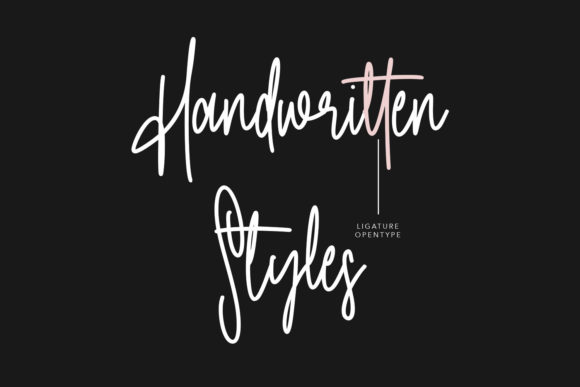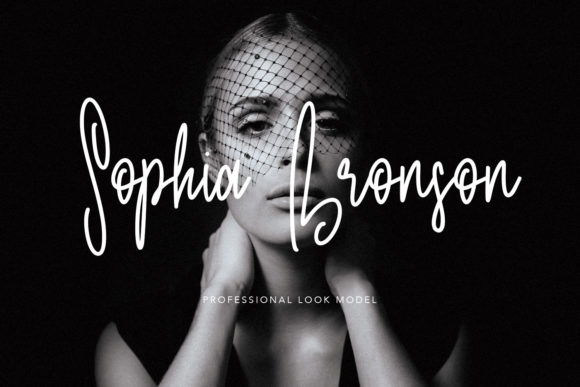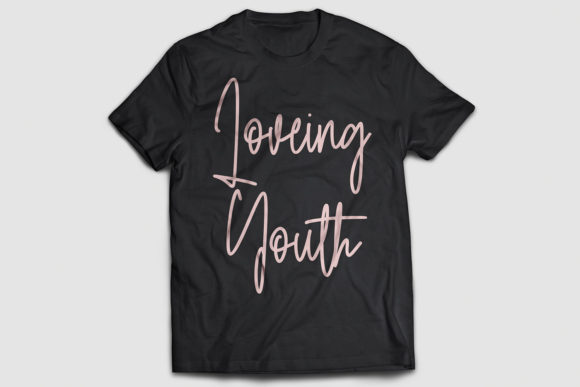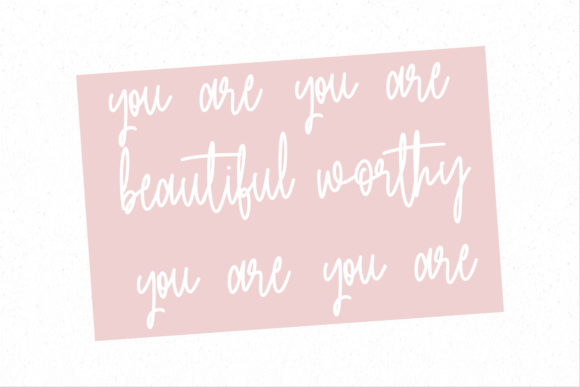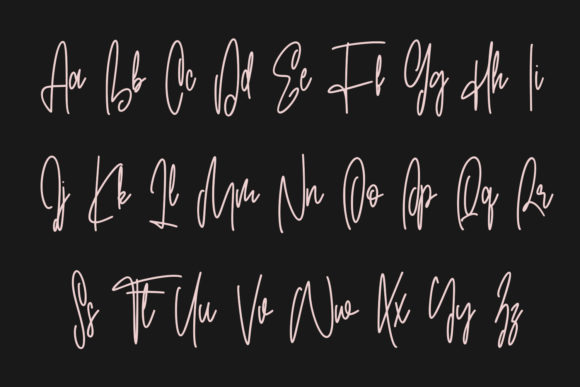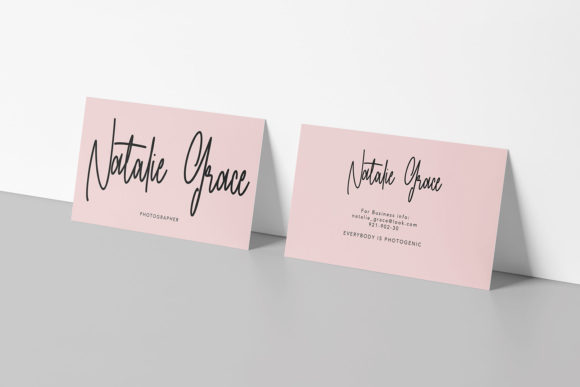
Unleashing Your Creative Potential
Have you ever sat down with a blank canvas, a blank piece of paper, or a blank screen, and felt the excitement of bringing a new idea to life? The blank slate is a thrilling place, full of possibilities and promise. As you start to sketch out your vision, the words begin to flow, and your imagination runs wild. But what if you could give your designs that extra special something – that authentic, handcrafted feel that makes them truly unforgettable?
Enter Cardiolla Font, the perfect tool for designers looking to add a touch of elegance and sophistication to their work. This stylish font is designed to evoke the feeling of a hand-painted brushstroke, making it the perfect choice for signatures, stationery art, logos, and more. Whether you’re a seasoned pro or just starting out, Cardiolla Font is a valuable addition to any designer’s toolkit.
Cardiolla Font Key Features
- Unique Characteristics: Cardiolla Font features a unique blend of modern and vintage elements, with a distinctive curved design that adds a touch of elegance and sophistication to any text.
- Character Set: The font includes a comprehensive character set, including uppercase and lowercase letters, numbers, punctuation marks, and special characters, making it suitable for a wide range of applications.
Cardiolla Font Review
Overall, I have mixed feelings about the Cardiolla font. On the one hand, it’s a unique and creative font that can add a touch of personality to a design project. ✨ Here are some of its strengths:
- It has a fun, playful vibe that’s perfect for projects that need a lighthearted tone.
- The font has a good range of weights and styles, making it easy to customize for different design needs.
- It’s well-suited for digital applications, such as social media and website design.
However, there are some limitations to consider. ⚠️ Here are a few potential drawbacks:
- The font may be too ornate for some design projects, which can make it difficult to read.
- It may not be the best choice for projects that require a more formal or professional tone.
- The font’s quirks and irregularities can be distracting in some cases.
Overall, I think the Cardiolla font is a good choice for designers who want to add some personality and flair to their projects. However, it’s not a one-size-fits-all solution, and designers should carefully consider whether it’s the right fit for their specific needs.
Tips for Getting the Most Out of Cardiolla Font
For optimal results, use Cardiolla Font for titles, headings, and emphasis. It’s also effective for creating visually appealing quotes and short paragraphs.
Cardiolla Font is suitable for:
- Health and wellness marketing
- Beauty and fashion design